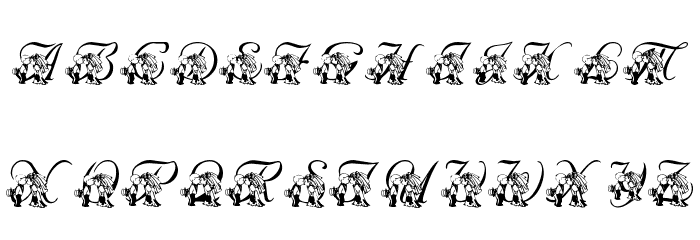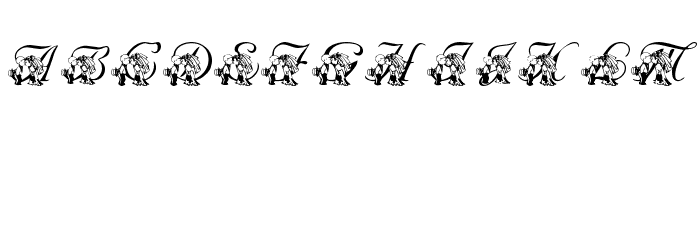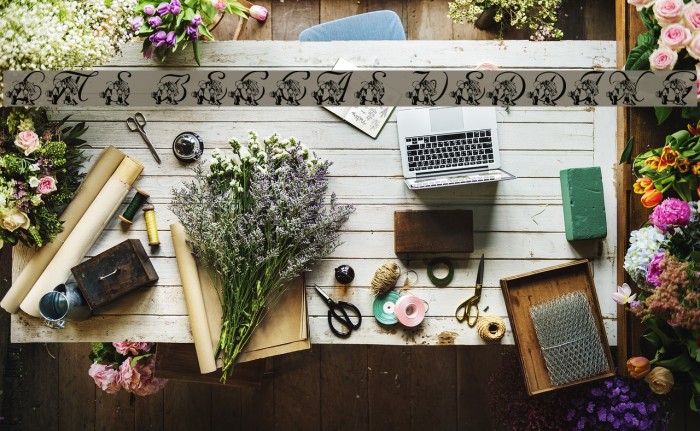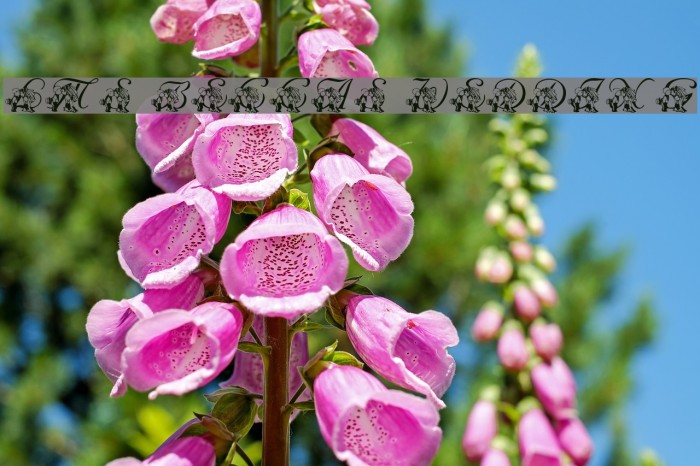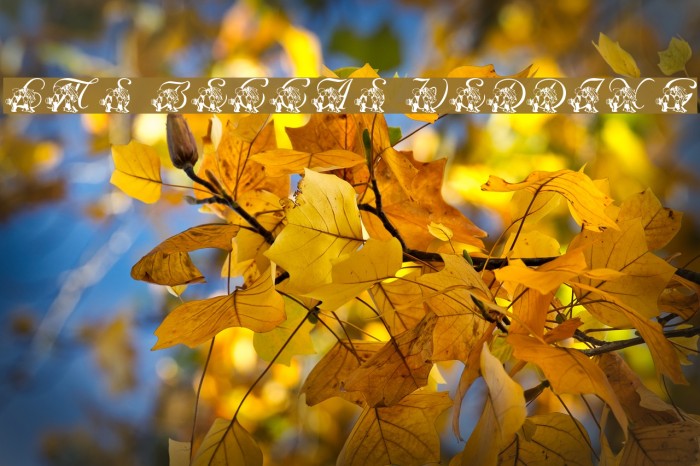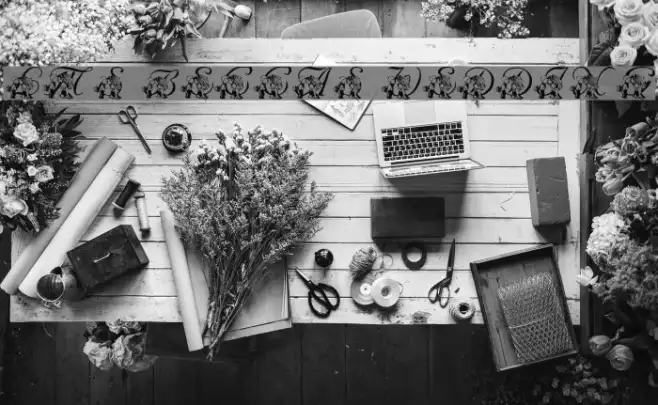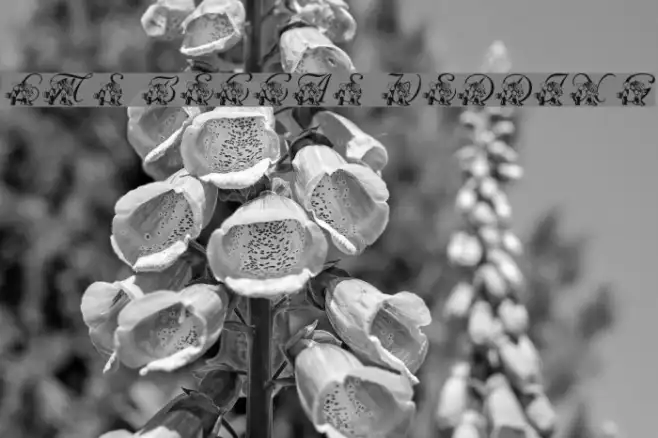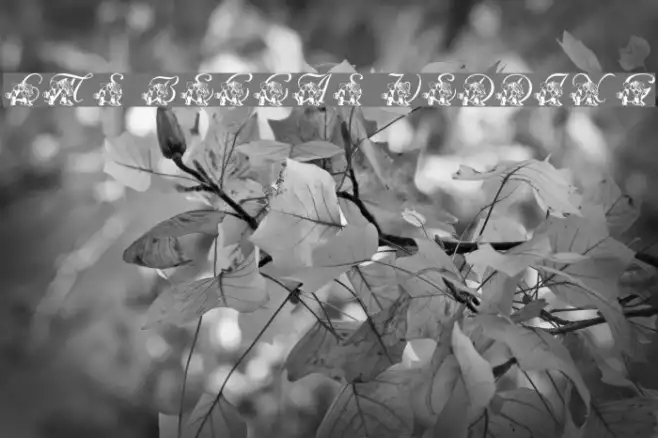
LMS Becca's Wedding Font
This font is a decorative and whimsical typeface featuring intricate, playful characters that resemble small, detailed illustrations. Each letter is adorned with elaborate flourishes and embellishments, giving it a unique, artistic appearance. The design is reminiscent of a fairy tale or fantasy theme, with each character appearing as if it is part of a storybook illustration. The font is highly stylized, with a strong emphasis on visual creativity and artistic expression. The characters are consistent in style, maintaining a cohesive look across both uppercase and lowercase letters, as well as numbers and special symbols. This font is ideal for projects that require a touch of fantasy or a whimsical, storybook feel.
A decorative, whimsical font with intricate, storybook-style characters.
- Proposed Projects: Ideal for fantasy-themed invitations, children's book covers, or whimsical branding projects.
- Use Case: Logos, Invitations, Decorative Text